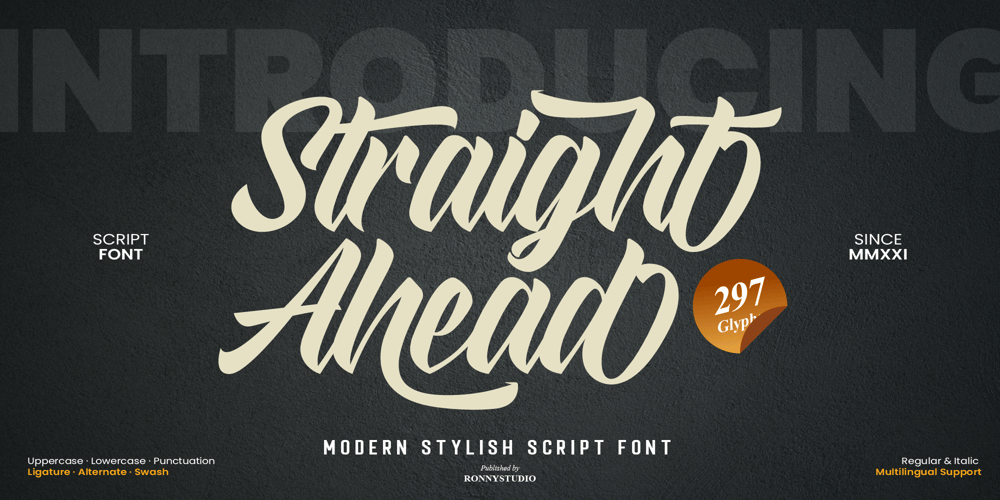
Straight Ahead
Straight Ahead font
Straight Ahead Font Family was designed by Rony Rizki Jaya and published by Ronny Studio. Straight Ahead contains 2 styles and family package options. Straight Ahead is a dazzling handwritten font. With a modern style, this versatile script font has a wide spectrum of applications such as for branding, logotype, and more. Straight Ahead is PUA coded which means you can access all the glyphs and sweeps easily! It is suitable for branding, Poster Design, Event, logotype, product packaging, decoration, t-shirts, poster labels, etc.2 Style Font : Regular Italic Straight Ahead Features : Uppercase Lowercase Numbers & Punctuation Ligature Alternative Wash Multilingual Support Simple installation All of features and special characters of this font are included in one file. So it is easy to accessed by using program or software that support the opentype like Adobe Illustrator, Adobe Photosop, and Adobe Indesign). This font also very easy to use because compatible for all software even for non-opentype supported. Please comment us if you have any questions Thank you and have a nice day.thank you